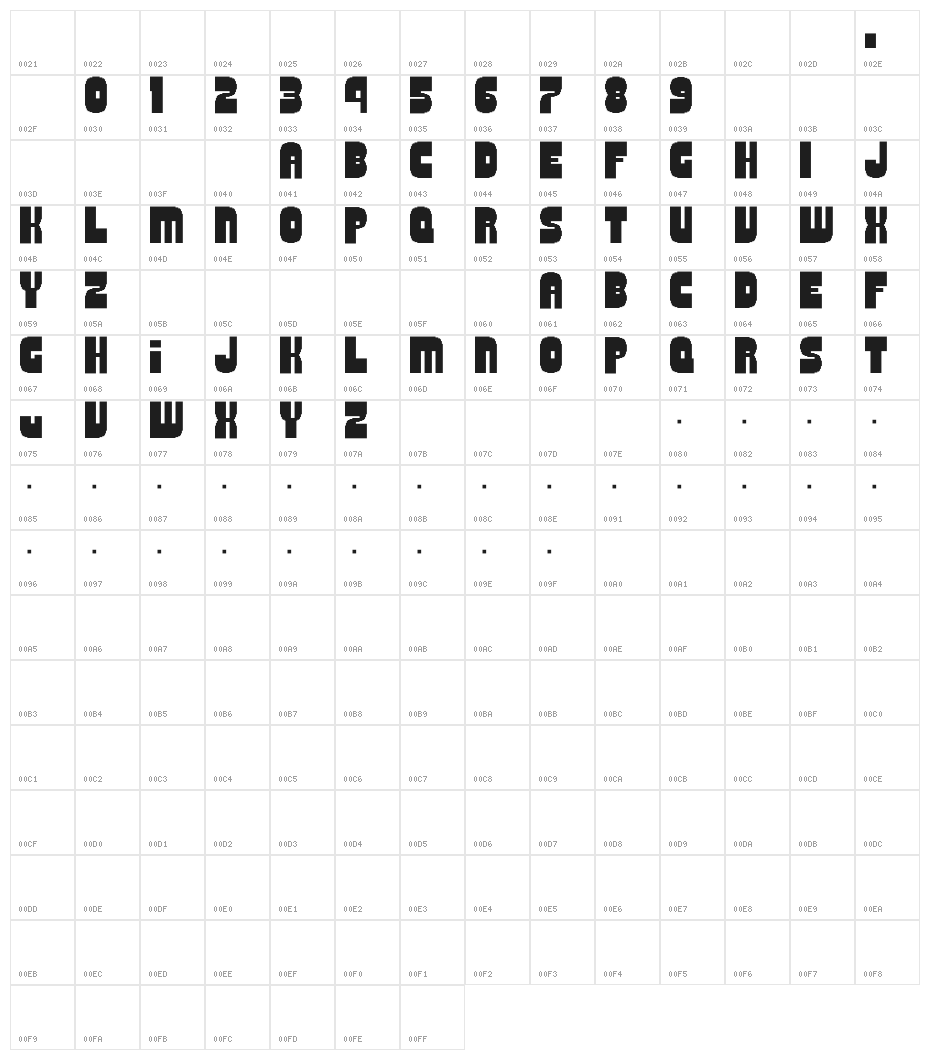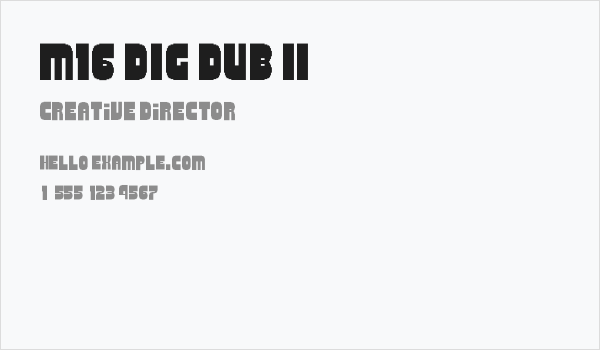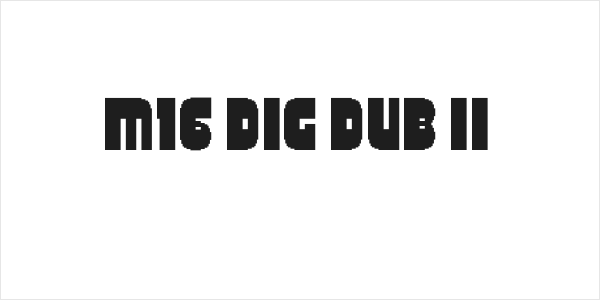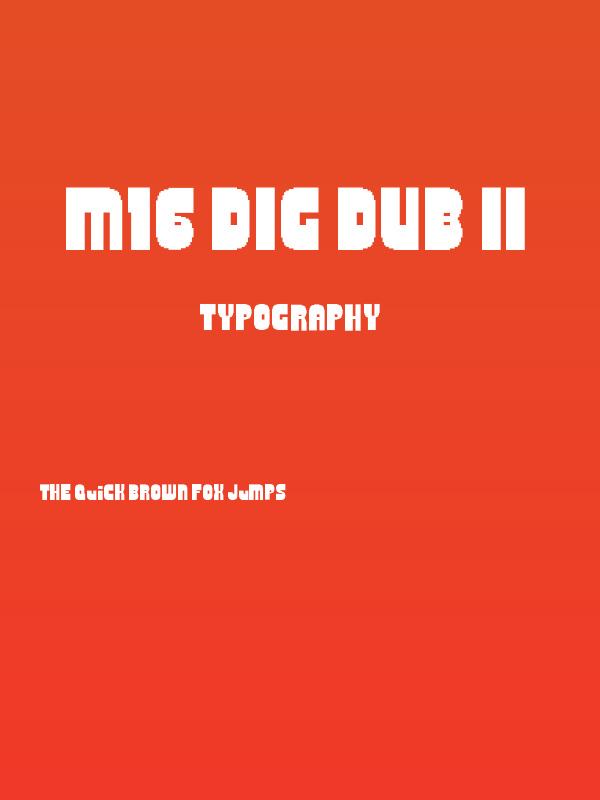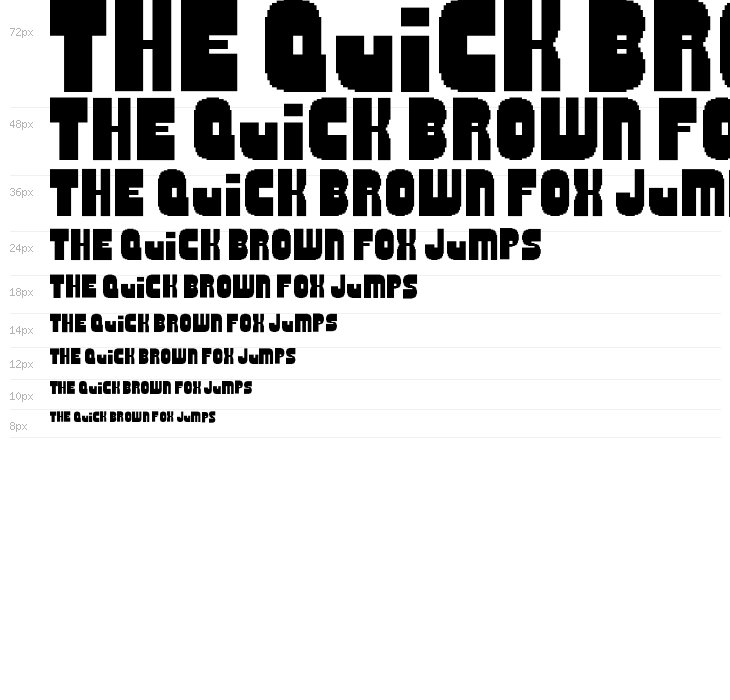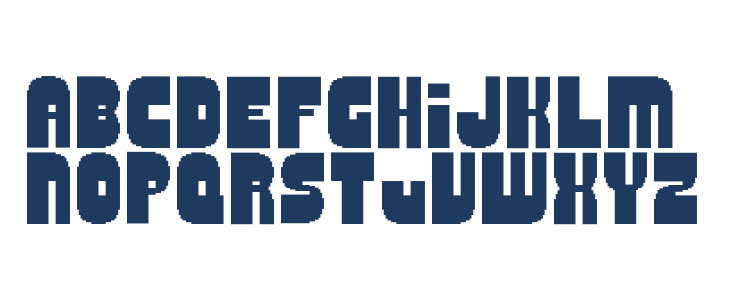
M16_DIG DUB II Font
M16_DIG DUB II Description
This bold, geometric font features a distinct, blocky appearance with sharp angles and a strong presence. The uppercase and lowercase letters maintain a uniform height, creating a cohesive and structured look. The numbers and special characters are designed to match the boldness of the alphabet, ensuring consistency across all characters. The font's design is reminiscent of digital or retro styles, making it suitable for projects that require a futuristic or tech-inspired aesthetic. Its solid and impactful nature makes it ideal for grabbing attention.
| Proposed Projects | Ideal for digital displays, tech branding, video game titles, and futuristic-themed posters. |